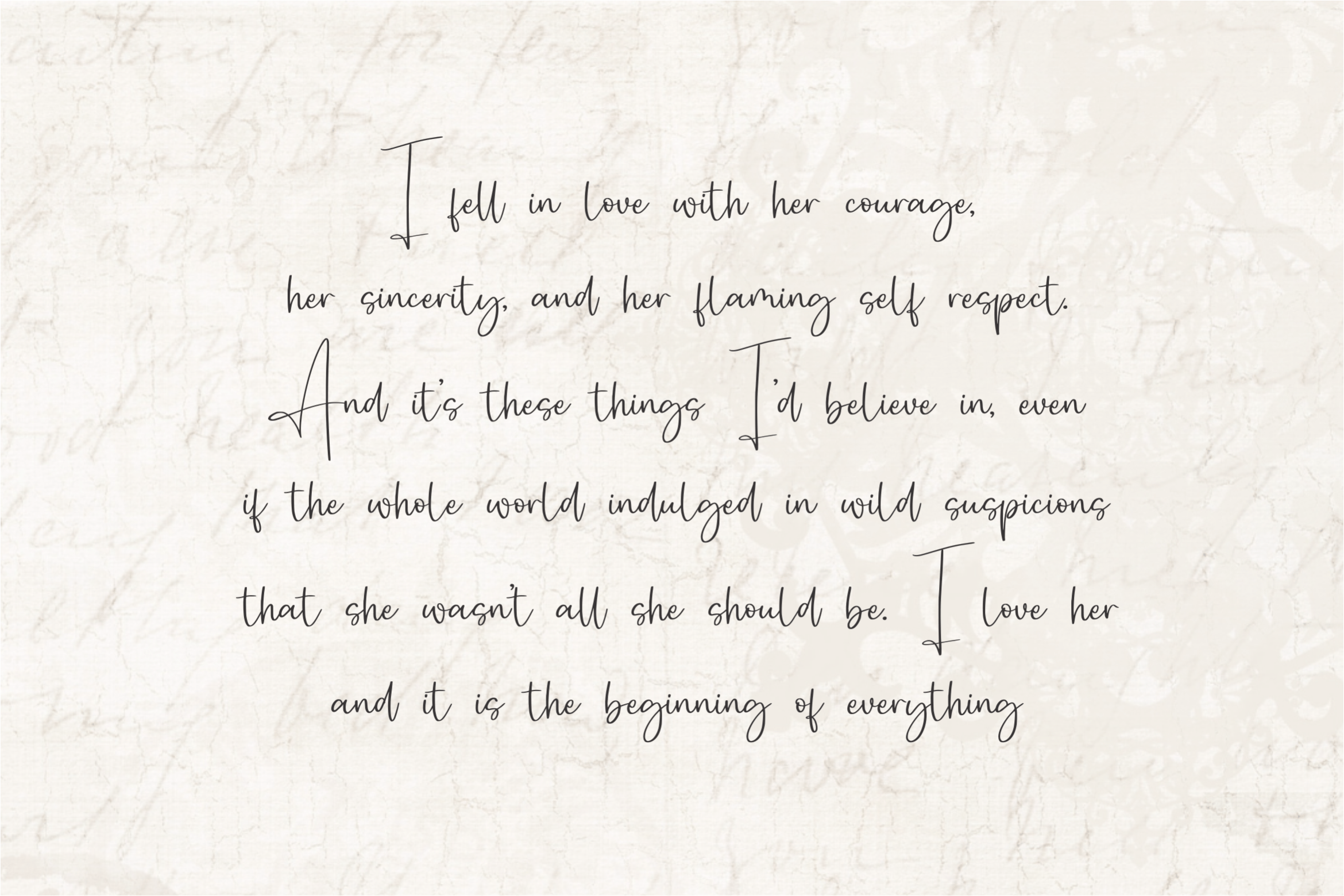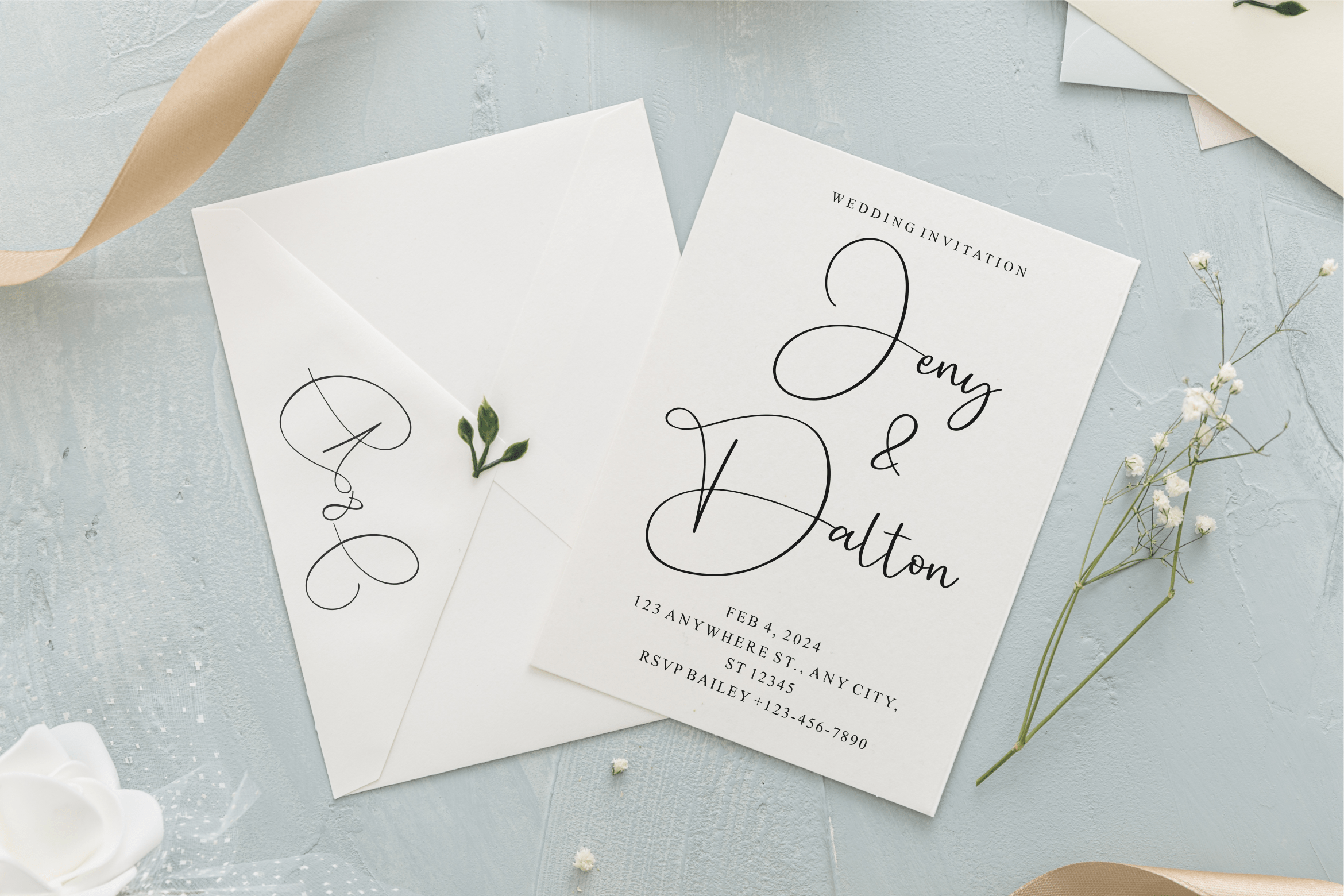
Rainsnight Font
Rainsnight Script Font
This is a modern handwritten font perfect for product packaging, branding projects, magazines, social media posts, weddings, or just used to express words above the background.